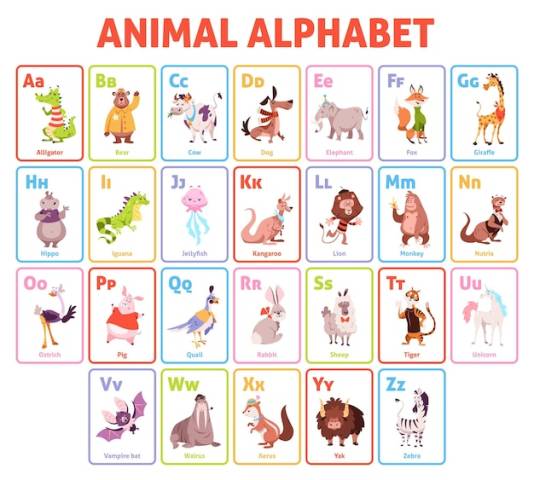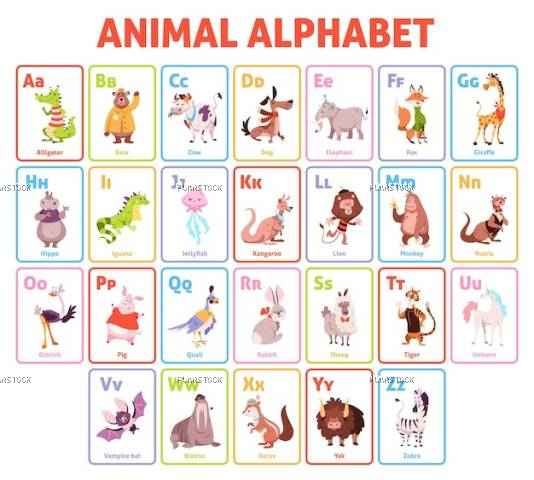
Alphabet cards funny animals letters educational children cards kids learning through play abc game cute wildlife mammals and birds font childish educational vector cartoon isolated concept